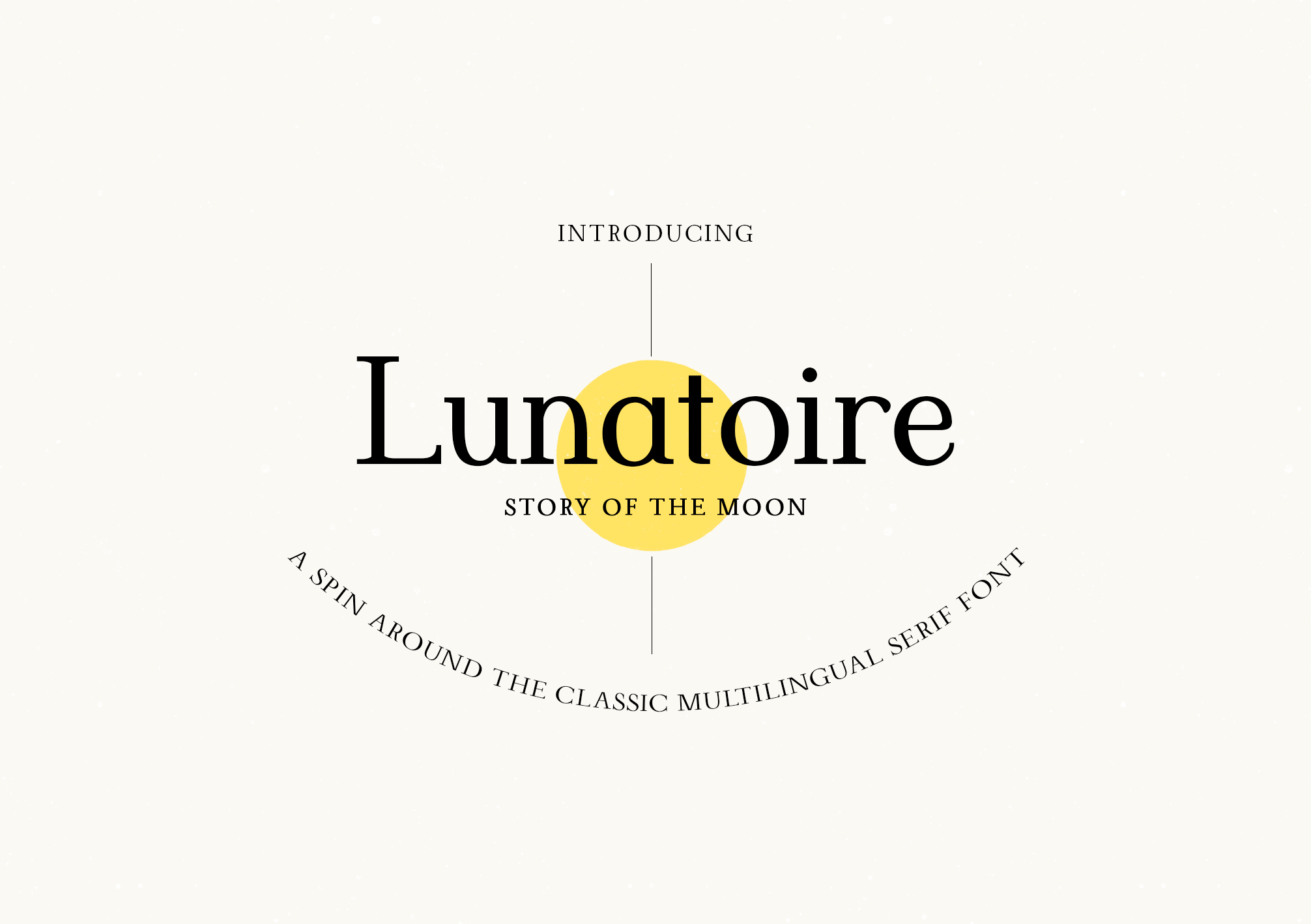
Introducing Lunatoire – story of the moon. A spin around the classic serif font. Have you discovered its mysteries and character, the story it is telling? A serif font perfect for your brand design, editorial project. It is your turn to telling your story.